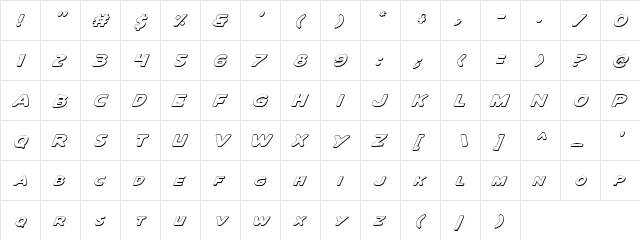
Quartermain Outline Italic Outline Italic
| Style | Outline Italic |
Design Context for Quartermain Outline Italic Typeface
Quartermain Outline Italic is built around its visual character rather than neutral utility — its distinctive forms are designed to make an impression at display sizes. The dynamic lean of this cut emphasises speed and emphasis in any layout.
Font Pairing: Pair with a clean neutral sans-serif for body copy to let Quartermain Outline Italic's character lead without overwhelming the composition.
Pro Tip: Use Quartermain Outline Italic exclusively at display sizes — it was designed to be seen, not read at length. Let a neutral companion handle body copy.